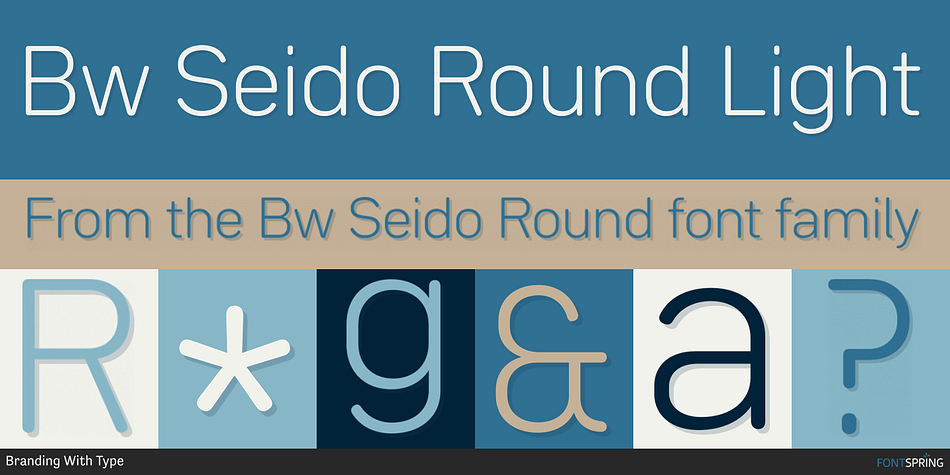
Designed by Alberto Romanos, Bw Seido Round is a sans serif font family. This typeface has twelve styles and was published by Branding With Type.
Bw Seido Round Light
Designed by Alberto Romanos, Bw Seido Round is a semi condensed typeface with rounded corners striking a gentle balance between minimal strict geometry and typographic refinement, conveying a subtle industrial yet friendly feel. It consist of 12 styles (6 uprights + 6 matching obliques) supporting all European Latin languages.
The design started heavily Influenced by the systematic principles behind the original German DIN 1451, with its clean, minimal shapes and rigid geometric feel: Both the lowercase and the uppercase have their own horizontal waistline running through all the characters, reinforcing the engineered feel and focusing the rhythm on its vertical pace.
Beyond the very obvious rounded corners and terminals, which are instantly softening the feel and positioning it on the friendly side, Bw Seido Round presents a series of subtle typographic adjustments elevating the design while staying invisible: The monoline look is achieved seamlessly thanks to the subtle modulation and the corrections at the joins; the tall x-height married with the open counters and the unambiguous shapes make it a very legible font,... All these ingredients play a balancing game with the crude geometry by adding the right doses of warmth into the industrial feel.
The resulting combination is a very functional type family suited for carrying the weight of a contemporary brand’s visual identity. Its tabular figures feature includes currency symbols and punctuation, making it a great candidate for information design and annual reports. Bw Seido Round is equally confortable in print as it is in digital environments, thanks to the additional symbols and arrows included matching each weight. Other OpenType features included are stylistic alternates, slashed zero, fractions, case sensitive and localised forms.